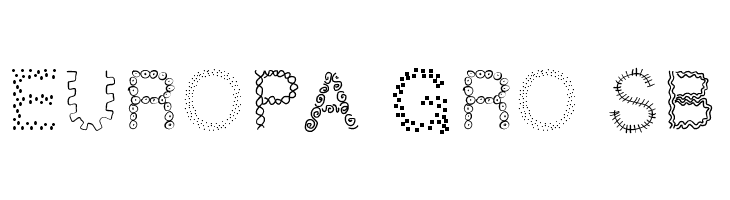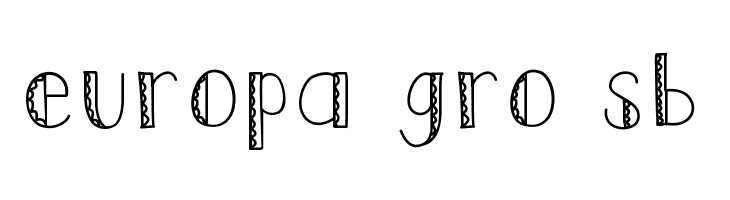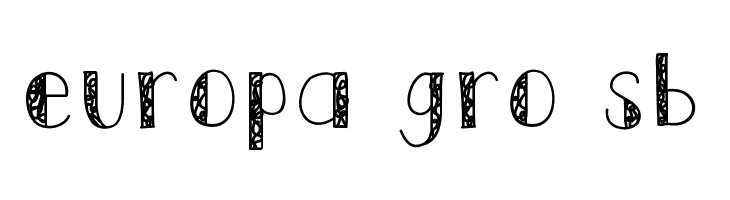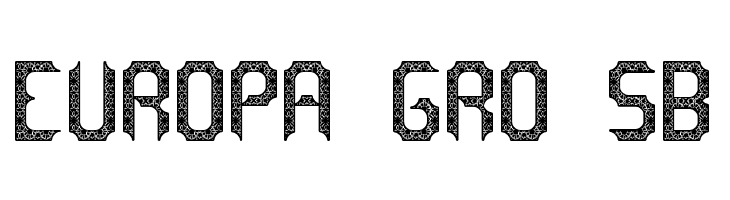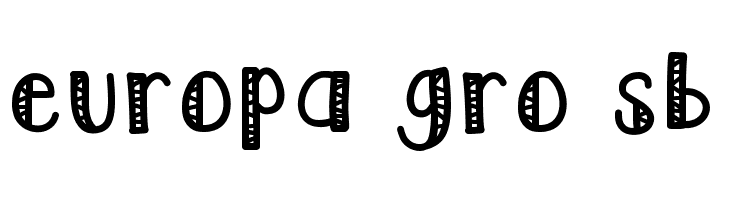
A decorative and eclectic font featuring diverse patterns and textures within each character.
A whimsical, hand-drawn decorative font with intricate patterns.
A playful, hand-drawn font with intricate swirl patterns.
A bold, decorative font with intricate geometric patterns and a gothic influence.
A whimsical, hand-drawn font with decorative internal patterns.